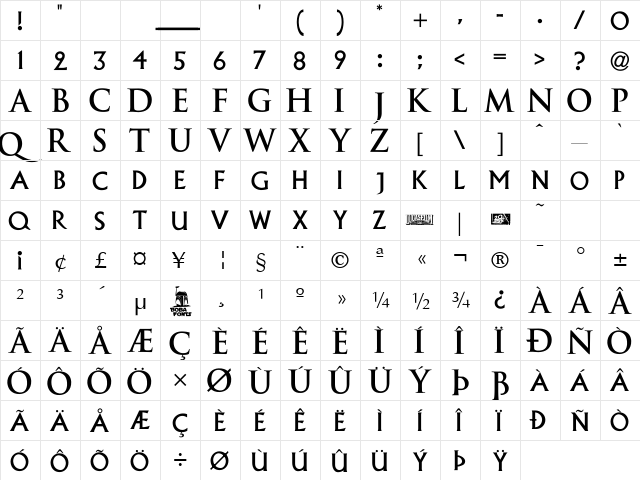
EPISODE I Regular
Design Context for EPISODE I Typeface
EPISODE I is a composed and adaptable typeface that performs quietly and consistently across a wide range of design contexts.